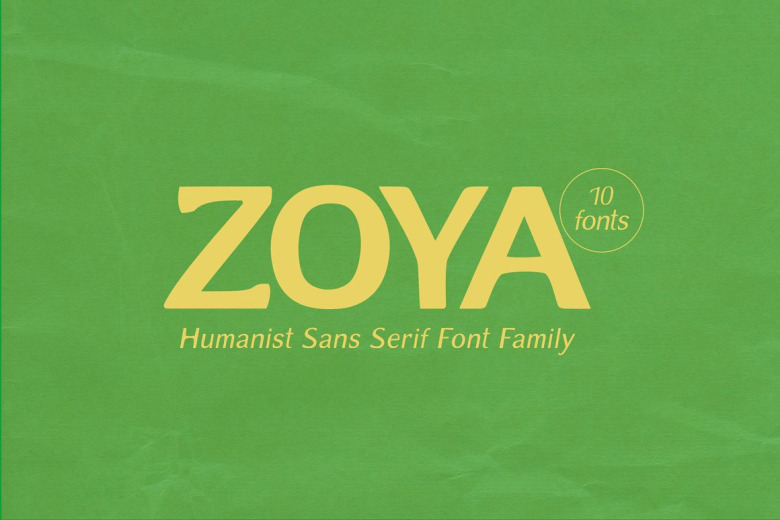
Zoya Font
Zoya is a sans-serif_humanist_ font that doesn’t need to be sans with its warmth and naturalness. Calligraphy origins of the humanist sans serifs are reflected in their round, dynamic and its open forms that have more stroke contrast compared to other classifications of sans serif.
Use for any association or institution that endeavors to look modern, welcoming, active as well professional at the same time.
Zoya Sans Serif Font Family